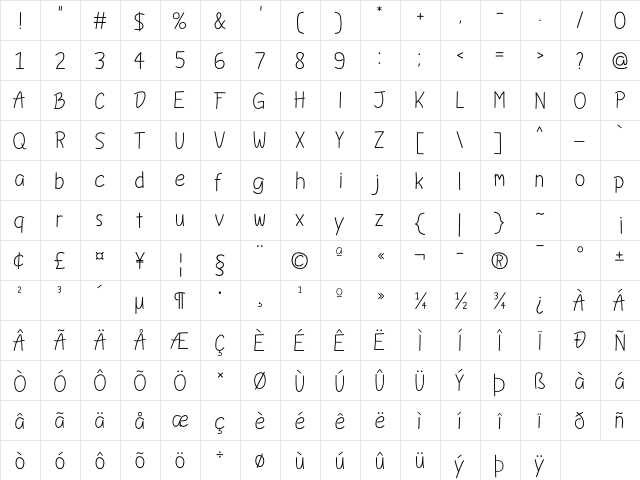
Rosemary Handwriting Regular
Design Context for Rosemary Handwriting Typeface
Rosemary Handwriting flows with the natural rhythm of handwritten lettering, making it ideal for designs that call for warmth and personal expression.
Font Pairing: Combine Rosemary Handwriting with a simple geometric sans for maximum contrast — the tension between flowing curves and clean structure is a classic typographic pairing.
Pro Tip: Pair Rosemary Handwriting with a clean sans-serif for supporting text. The contrast between fluid script and geometric structure creates an elegant typographic hierarchy.